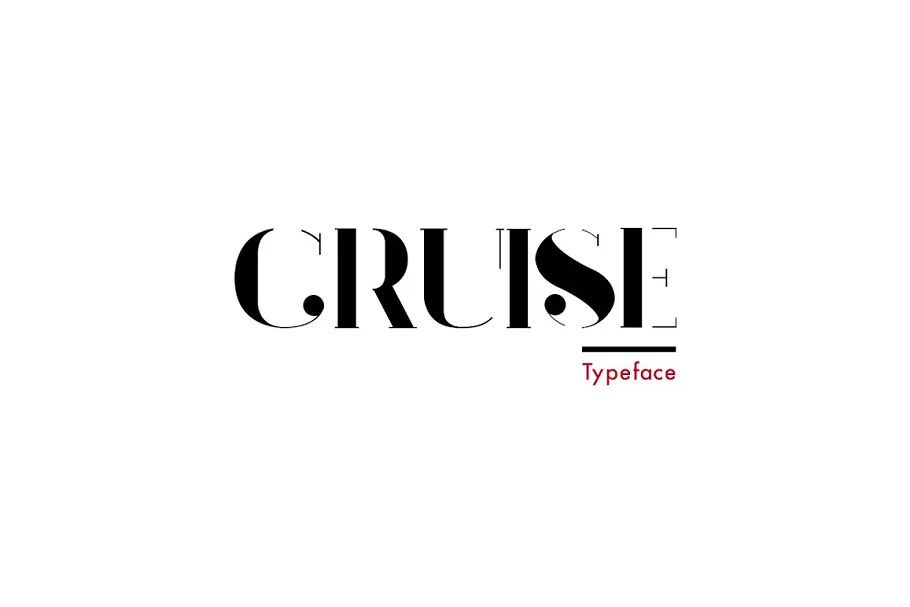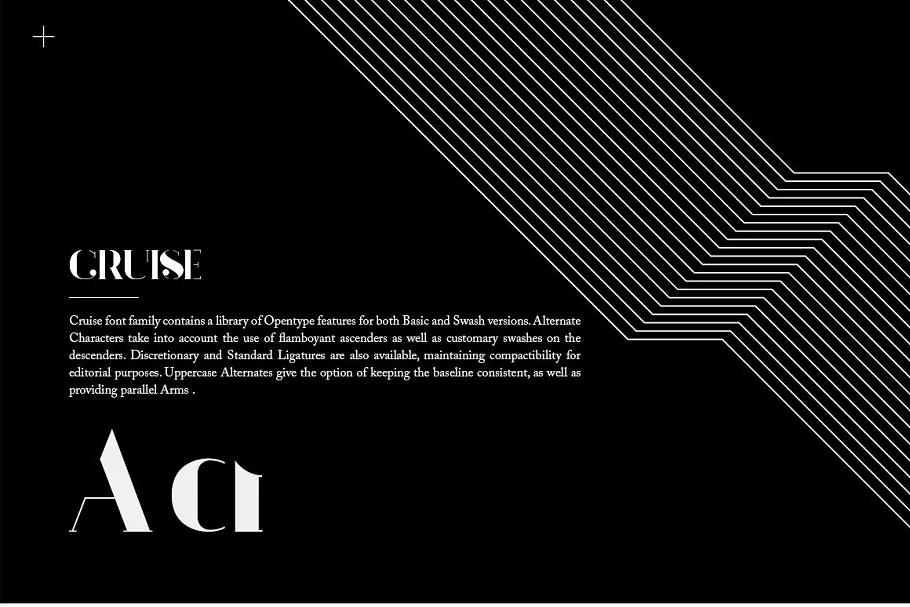
About the Cruise Typeface Font
Introducing a new typeface called Cruise which is perfect for Logo, Logotype, quotes, apparel design, invitations, flyers, posters, greeting cards, product packaging, headers, printed quotes, cover album, etc.